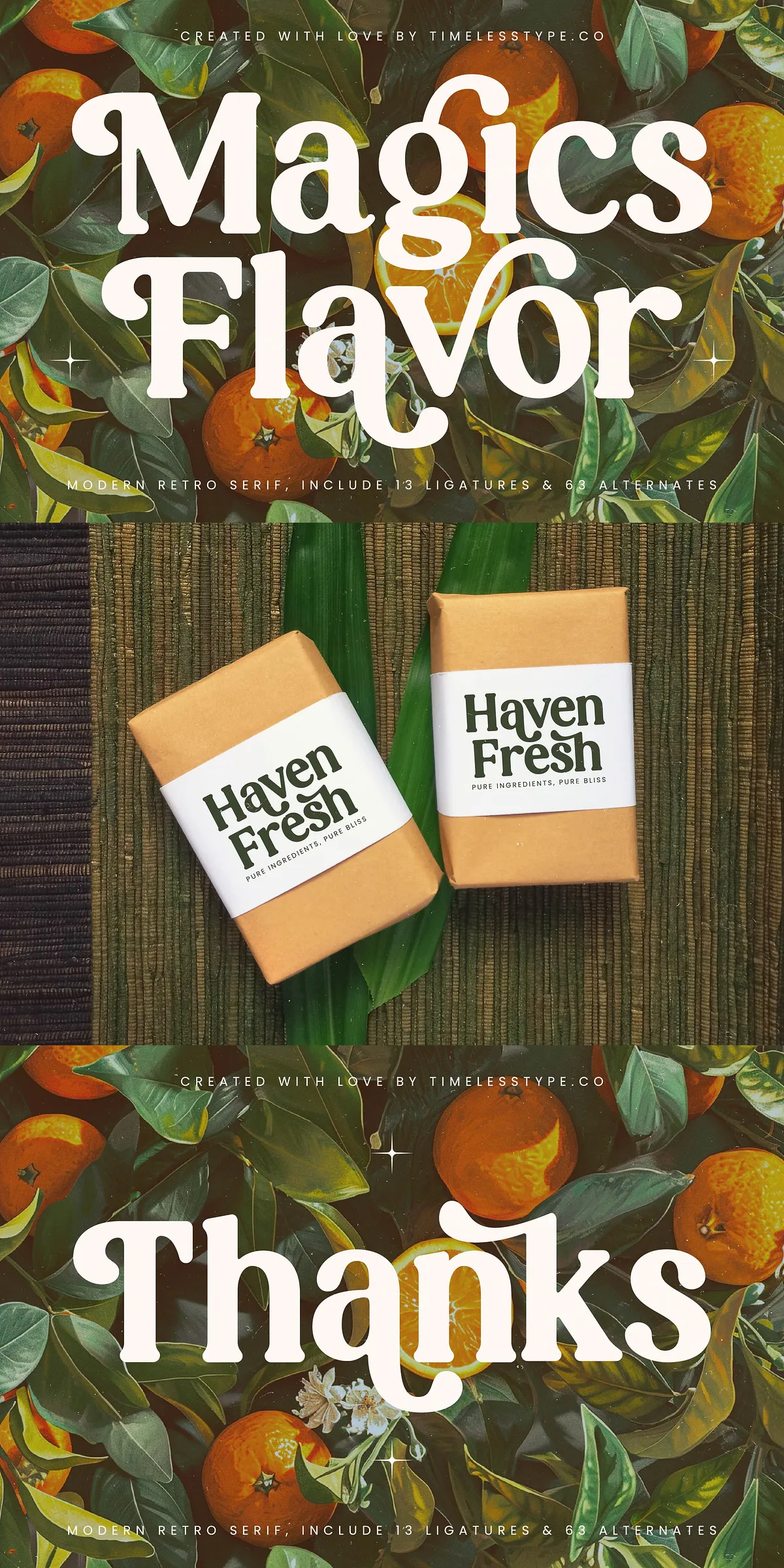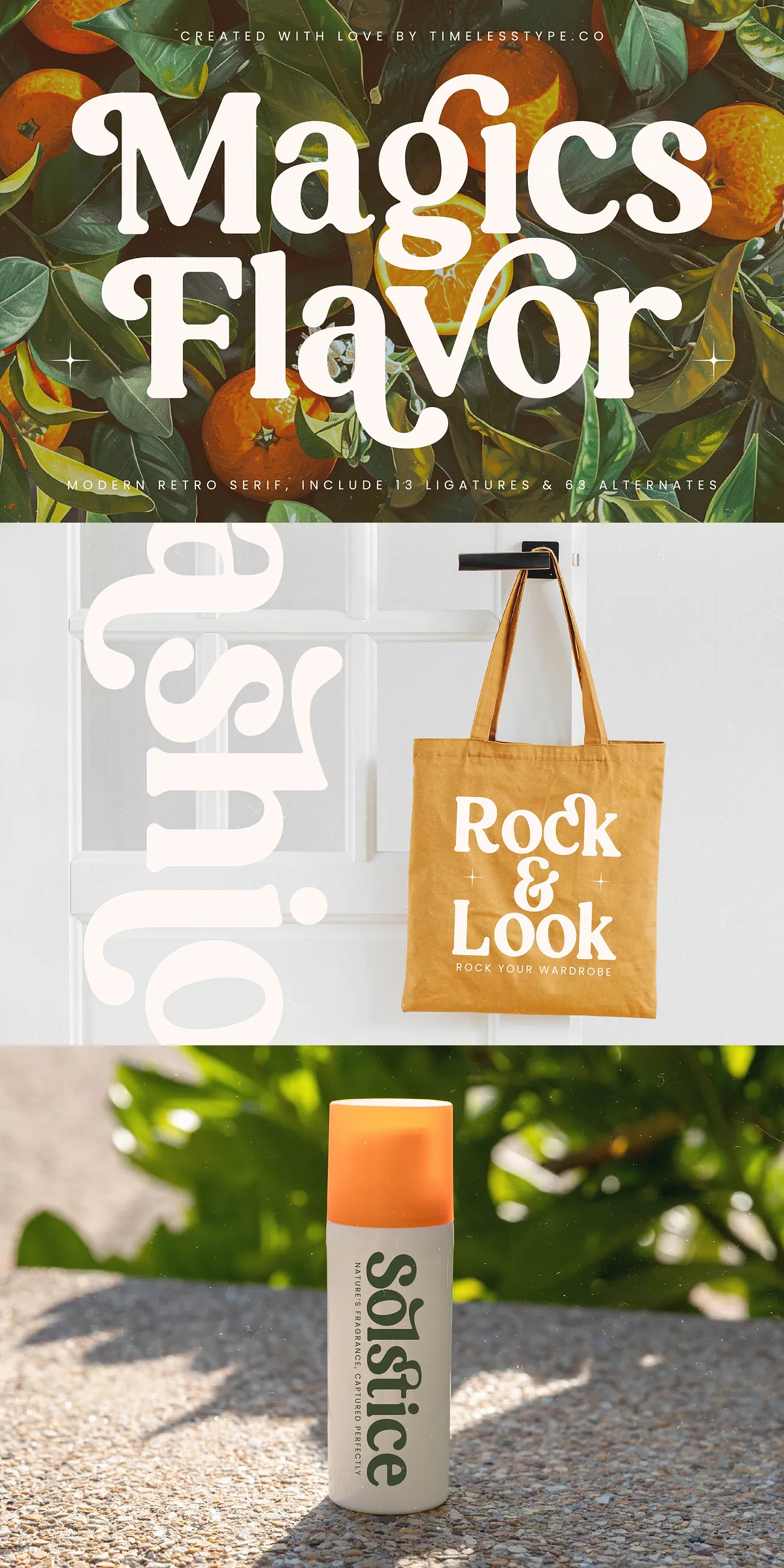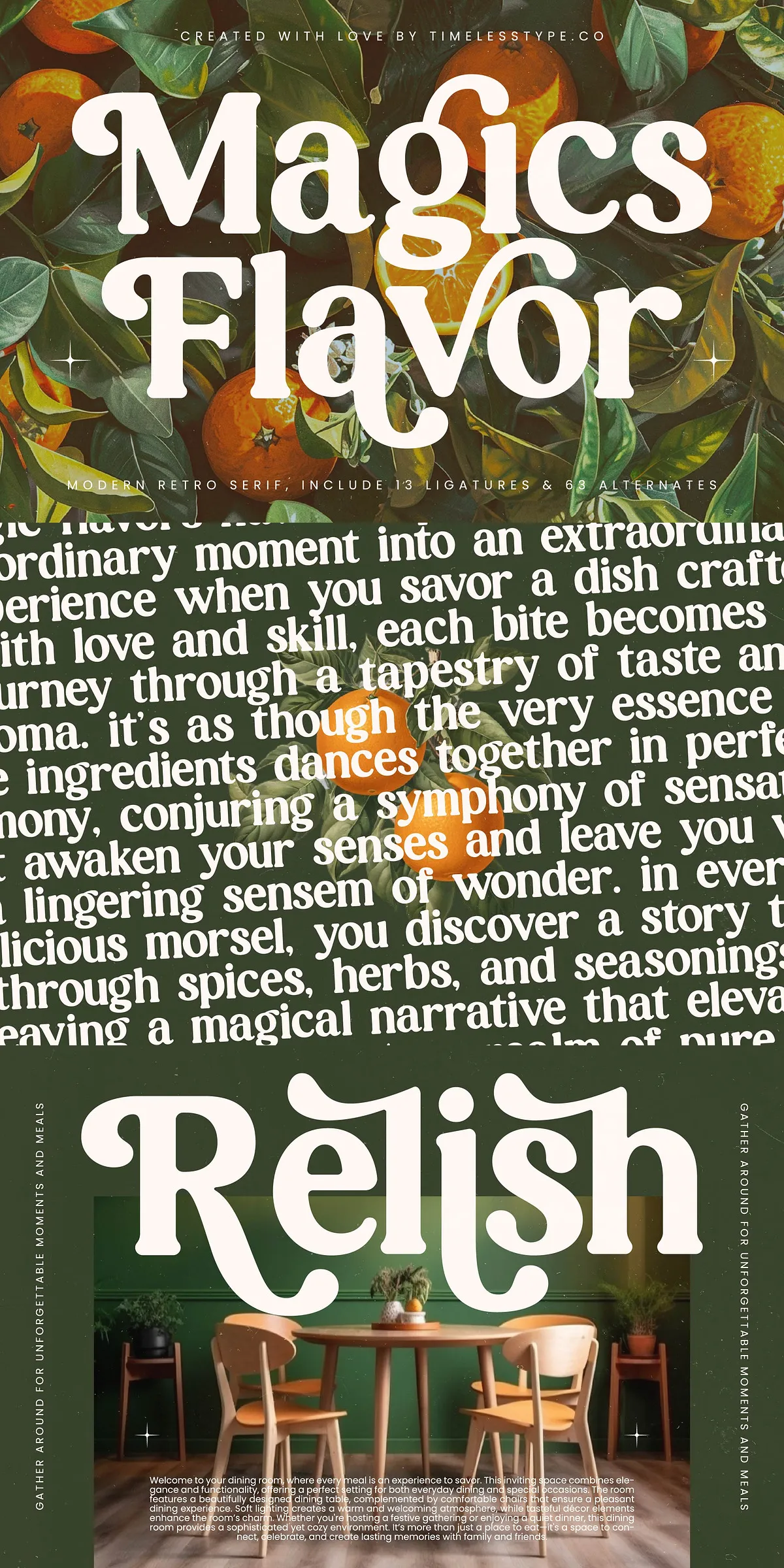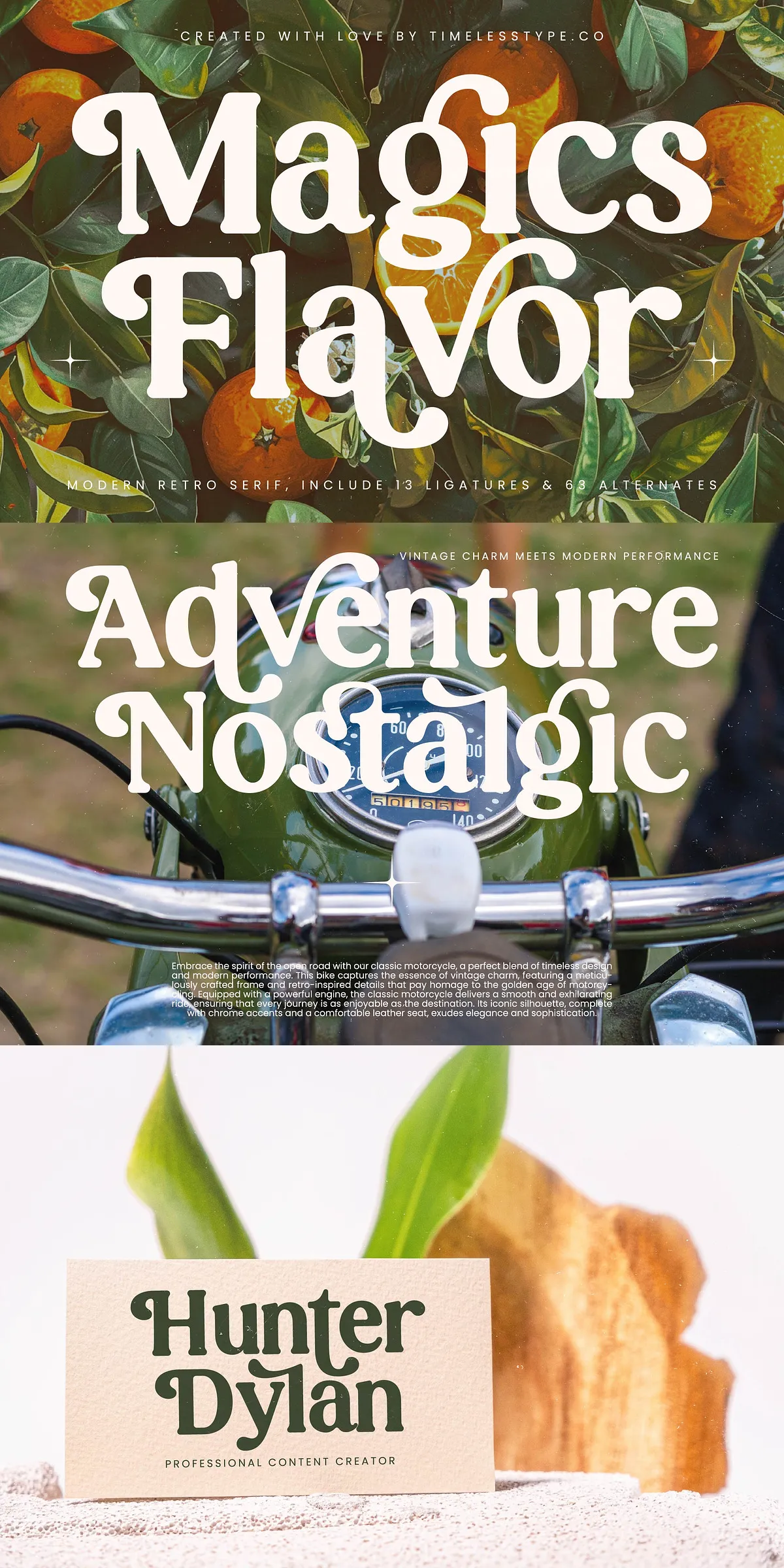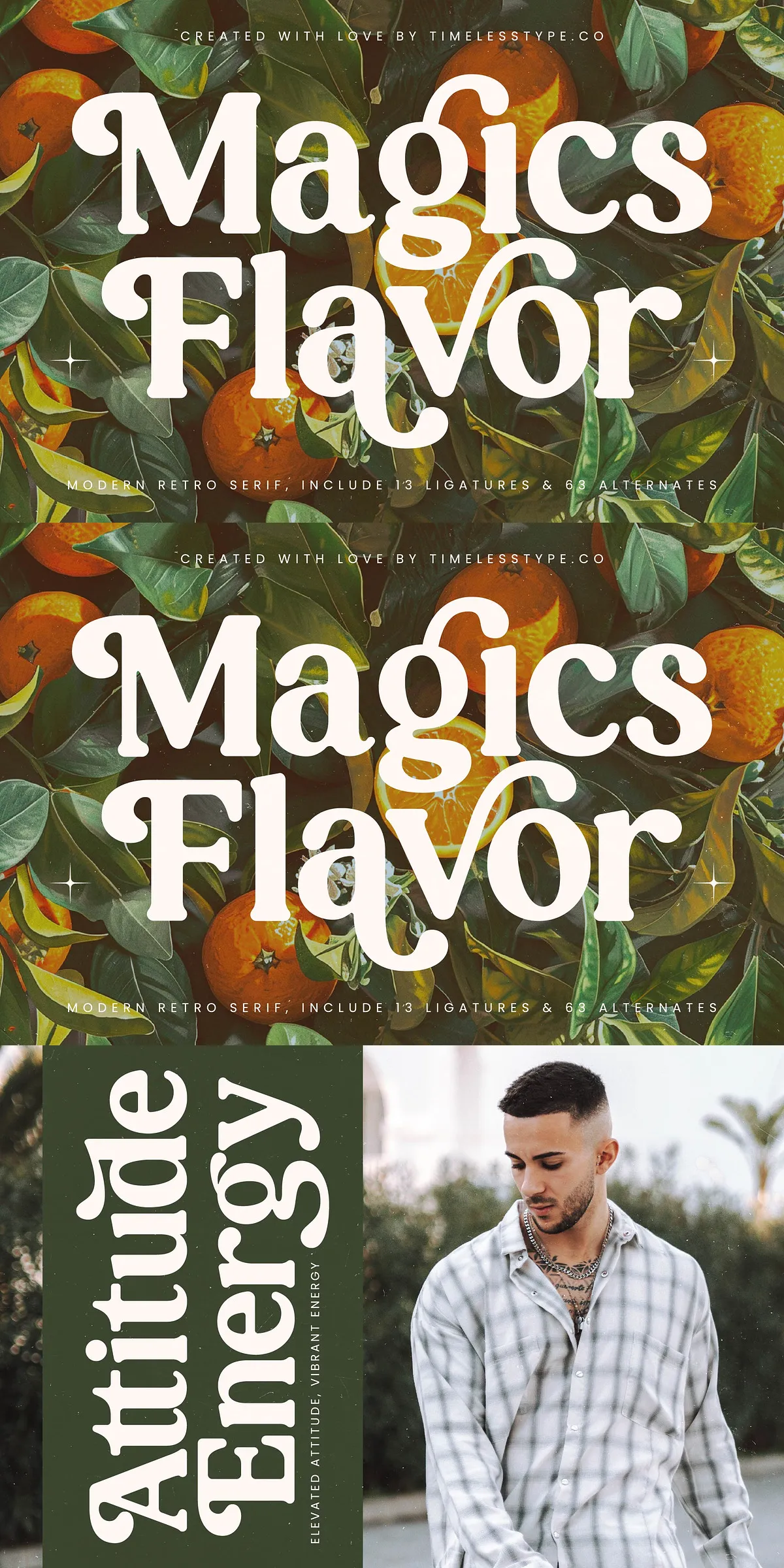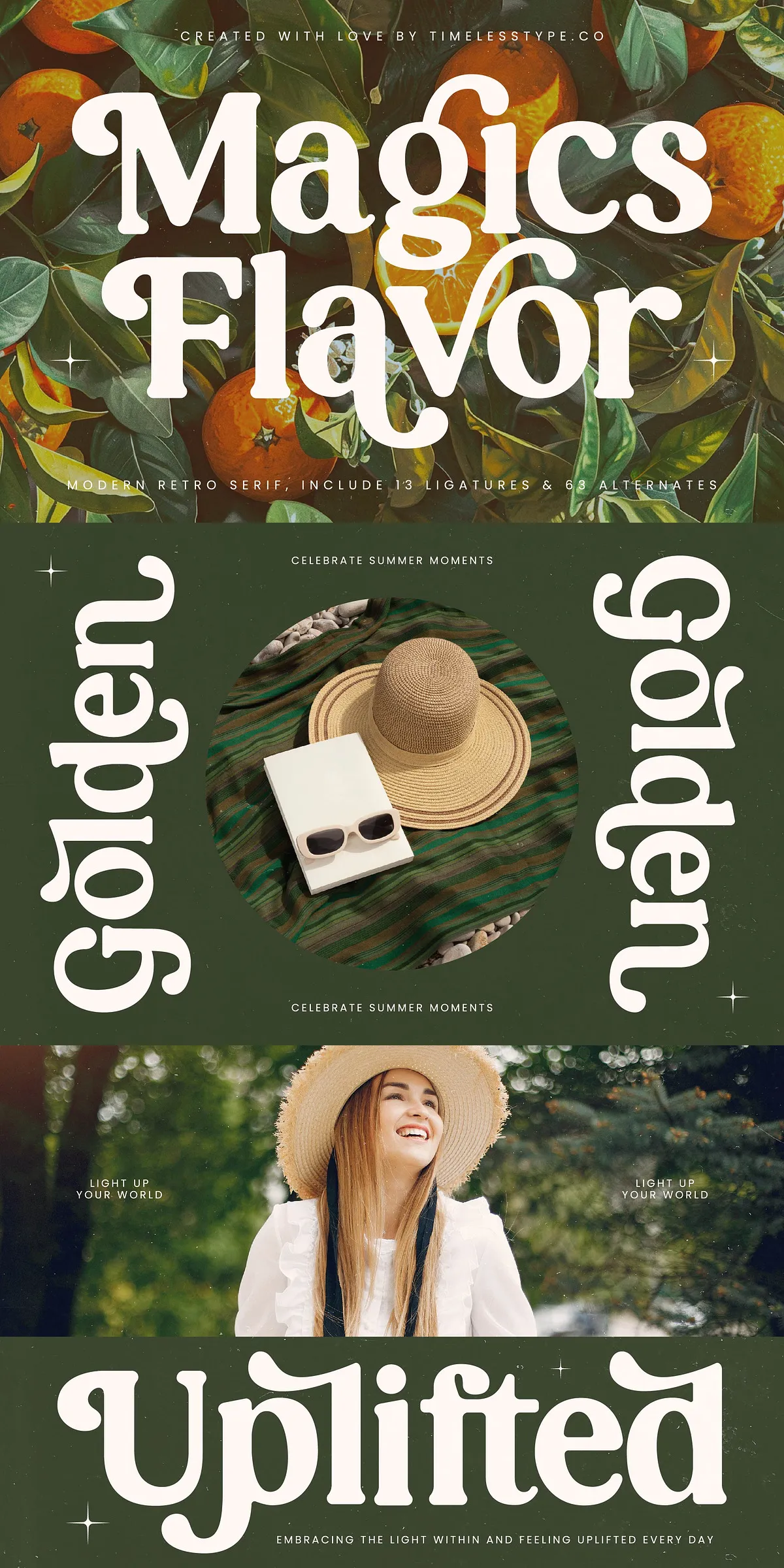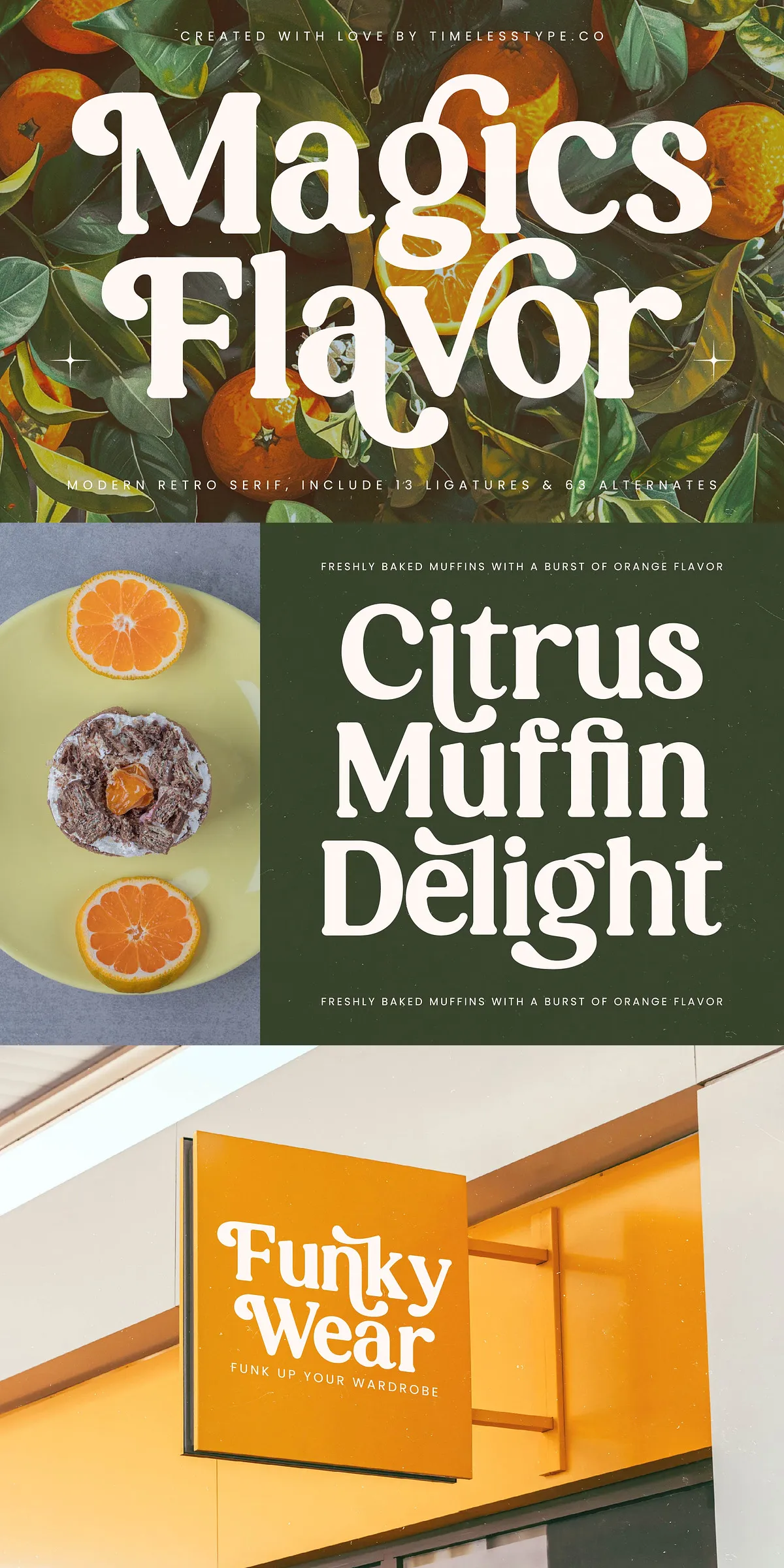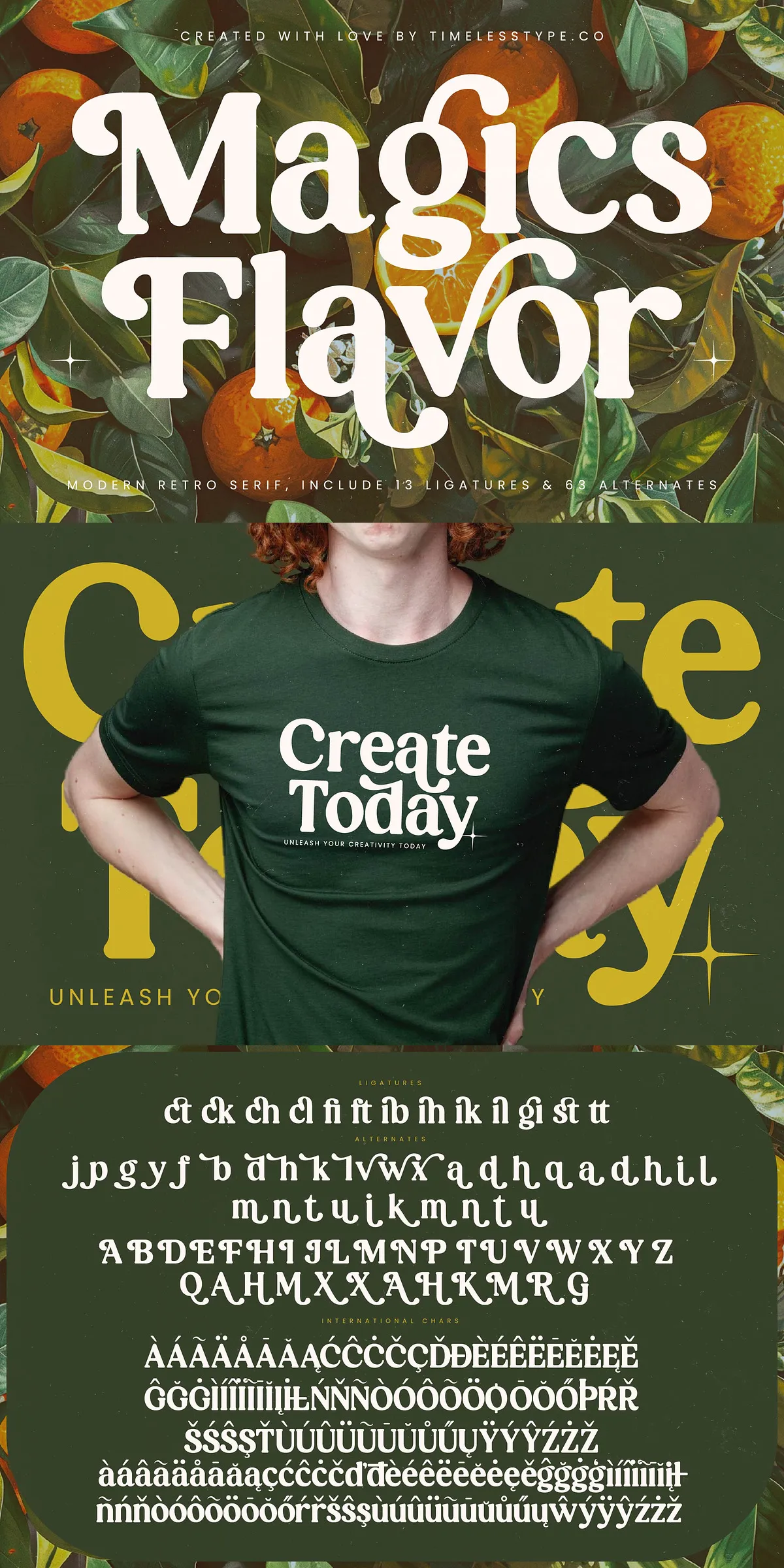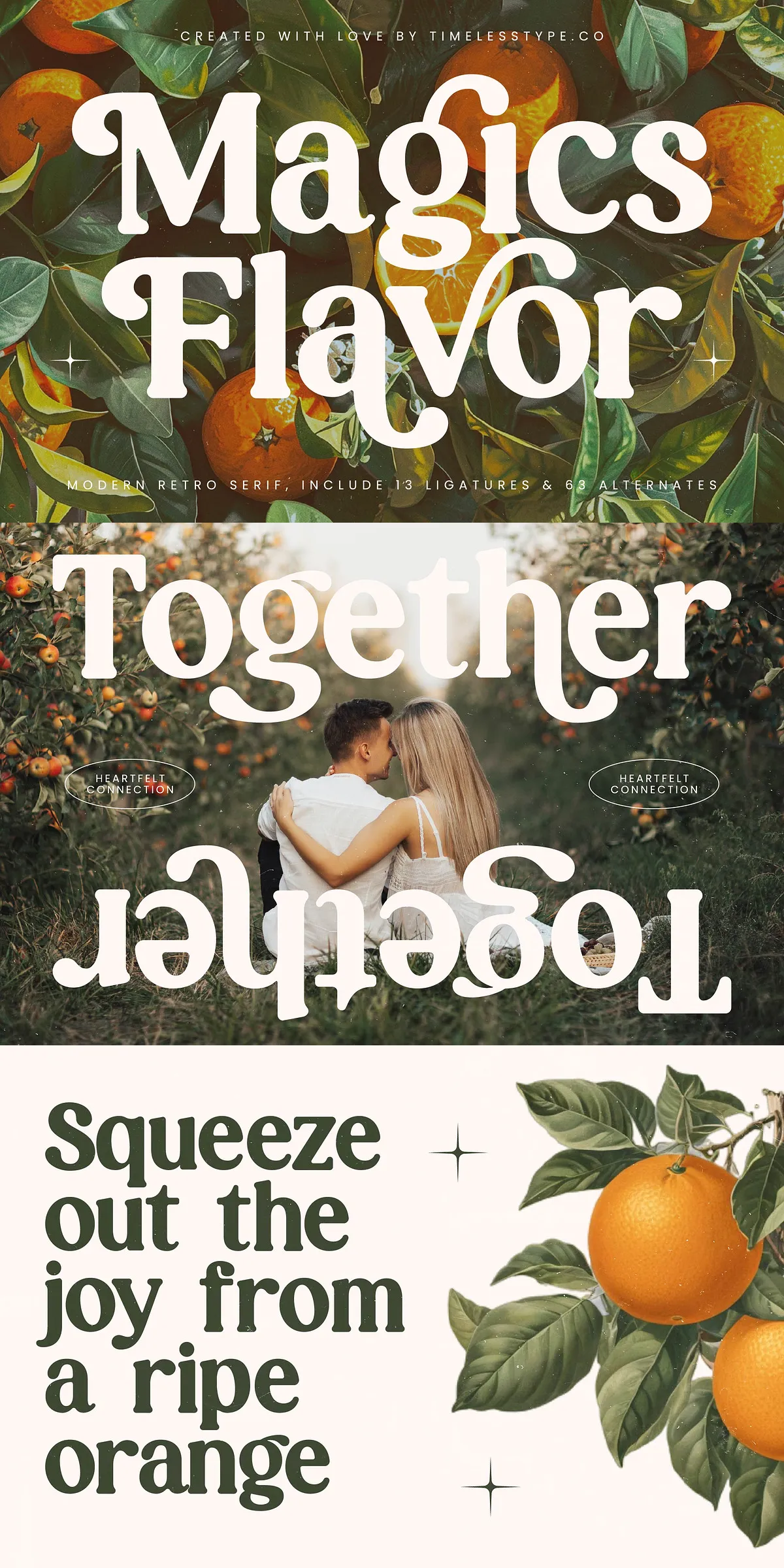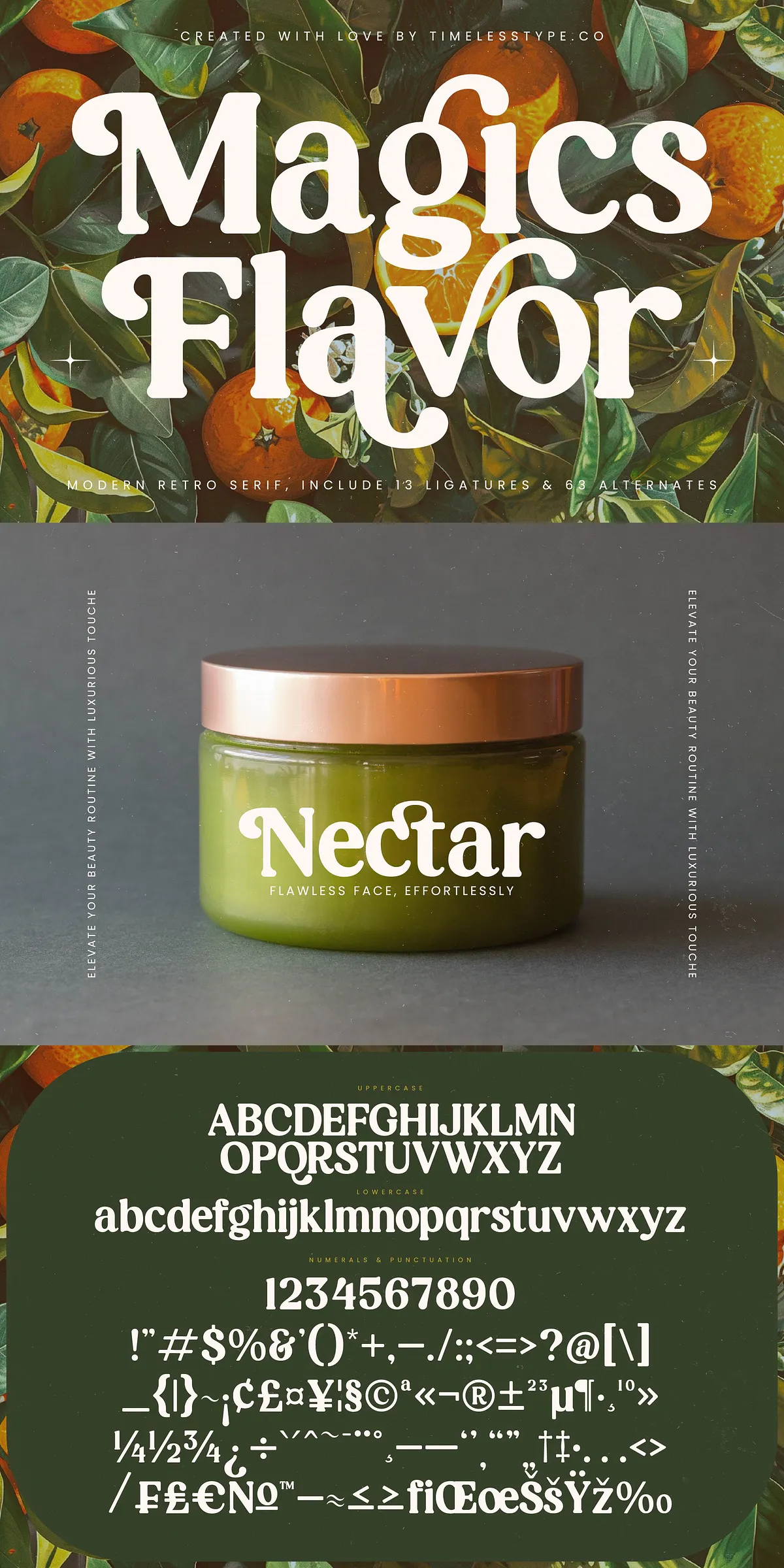
Magics Flavor Retro Modern Serif
Step into a world where every stroke is intentional, every curve sings with nostalgia, and every letter feels like a carefully chosen word in a love letter to design. Magics Flavor isn’t just a typeface — it’s a full sensory experience, crafted to transform your creative vision into something deeply personal and profoundly elegant.
Immerse yourself in the soul of the 1970s — golden sunsets, earthy tones, flowing silks, and handcrafted charm. Magics Flavor captures that spirit with breathtaking precision. Its sinuous serifs, generously rounded forms, and expressive swashes evoke the organic fluidity of nature and the artisanal craftsmanship of a bygone era — all reborn for today’s most discerning designers.
Where Elegance Meets Emotional Resonance
This is not just a modern serif font — it’s a luxury typography solution built for impact. With high-contrast serifs and refined, hand-crafted curves, Magics Flavor commands attention without shouting. It strikes a masterful balance between personality and poise — perfect for brands, publications, and visuals that demand presence and soul.
Whether you’re designing a high-end logo, crafting a fashion lookbook, or setting the tone for a romantic wedding invitation, Magics Flavor adds depth, warmth, and unmistakable character. Its expressive nature makes it ideal for editorial layouts, brand identities, and marketing campaigns where storytelling matters.
Unleash Your Creativity with Advanced Typography Tools
Go beyond basic letterforms. Magics Flavor comes packed with creative power:
• 63 Custom Alternates: Swap in unique versions of letters for dynamic, one-of-a-kind text blocks.
• 13 Elegant Ligatures: Seamlessly connect letters for fluid, artistic flow in headlines and display text.
• Stylistic Sets & Swashes: Add decorative flourishes to elevate your designs with vintage flair.
• Full Multilingual Support: Includes Latin-based characters with accents, diacritics, and international symbols — perfect for global brand campaigns.
• OpenType Excellence: Full access to advanced typographic features for professional design environments.
Designed for Real-World Applications
Magics Flavor thrives where creativity meets purpose. It’s more than a pretty font — it’s a strategic tool for visual storytelling across industries.
• Luxury Branding: Build identities that feel exclusive, timeless, and artisanal. Perfect for boutiques, perfumes, and fine goods.
• Editorial & Publishing: Use in magazines, blogs, and digital content to create elegant, narrative-driven layouts with emotional depth.
• Fashion & Lifestyle: Elevate lookbooks, mood boards, and social content with a vintage-modern aesthetic that stands out.
• Wedding & Event Invitations: Create romantic, personalized stationery that feels handmade and heartfelt.
• Packaging Design: Add a premium touch to cosmetics, ceramics, or gift boxes with a font that feels curated and intentional.
Typography That Doesn’t Just Look Good — It Feels Right
Magics Flavor is more than a font. It’s a statement. A mood. A moment of beauty in a digital world that often feels cold and rushed. It’s for creators who value design with soul — those who believe typography should not only be readable, but also memorable, meaningful, and emotionally resonant.